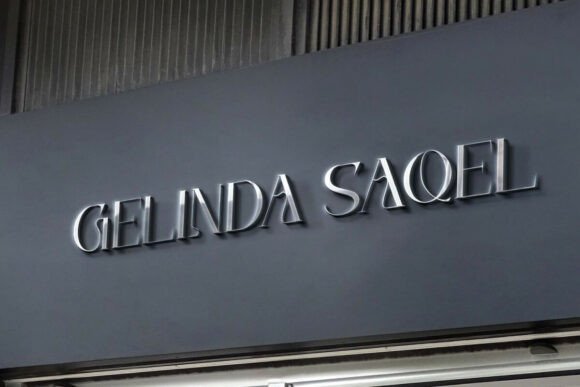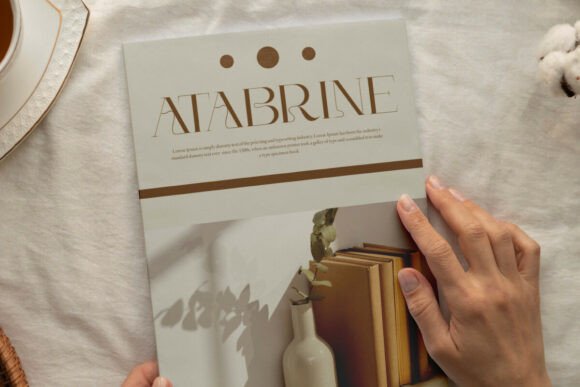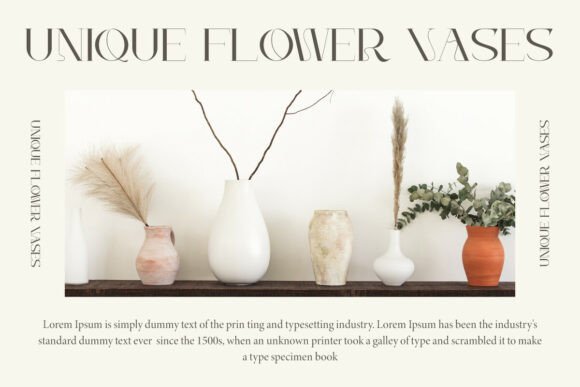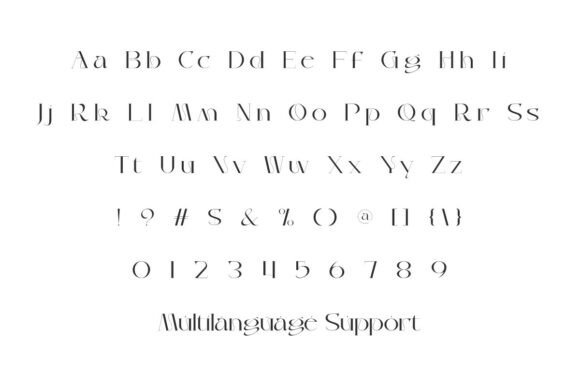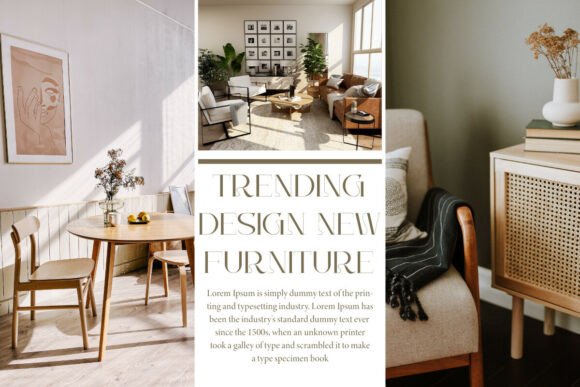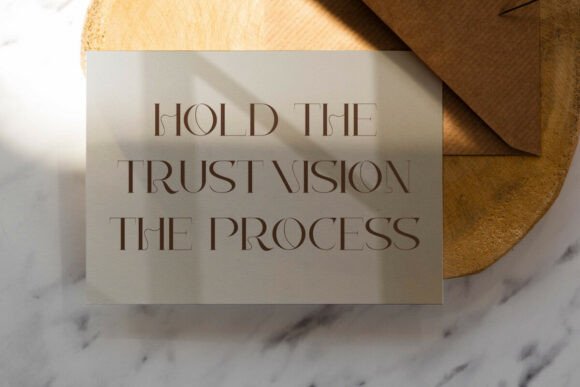
Introducing Atabrine Font: Elevate Your Designs with Classic Elegance and Modern Sophistication
In the world of typography, a font can make or break a design. It’s the foundation upon which creativity is built, and the right choice can elevate a project from ordinary to extraordinary. If you’re a designer, craftsperson, or simply someone who appreciates the art of beautiful typography, you’re in luck. Atabrine Font is an impressive serif display font that combines the classic elegance of flowing curves with the sophistication of modern design.
Designed for Versatility and Readability
Atabrine Font is crafted to be easily readable in both print and digital formats, making it an incredibly versatile choice for a wide range of applications. Whether you’re working on a banner, brochure, cover, greeting card, header, heading, label, poster, signage, tag, title, website, or any other project that requires a touch of elegance and sophistication, Atabrine Font is an excellent option.
One of the standout features of Atabrine Font is its ability to offer endless possibilities for customization and creativity. With a complete set of basic Uppercase and Lowercase characters, Numbers, Symbols, and Punctuation, you have the tools you need to bring your vision to life. The font’s unique shape presents an aesthetic appeal that is not only beautiful but also highly versatile, making it suitable for various creative projects.
Ideal for a Variety of Creative Projects
Atabrine Font’s versatility extends to a wide range of creative projects, including architecture, fashion, floristry, home furniture, interior design, restaurants, skincare, spa salons, weddings, and much more. Its classic elegance and modern sophistication make it an ideal choice for anyone looking to add a touch of refinement and style to their work.
Imagine using Atabrine Font to create a stunning logo for a fashion brand, a beautiful wedding invitation, or an elegant signage for a high-end restaurant. The font’s flowing curves and modern design ensure that your work will stand out from the crowd, making a lasting impression on your audience.
In today’s globalized world, communication knows no borders. That’s why Atabrine Font comes with multilingual language support, allowing you to create content that reaches a wider audience. Whether you’re working on a project that requires English, Spanish, French, or any other language, Atabrine Font has got you covered.
Key Features of Atabrine Font
- Classic Elegance and Modern Sophistication: Atabrine Font combines the best of both worlds, offering a unique blend of classic elegance and modern design.
- Easy Readability: Designed to be easily readable in both print and digital formats, making it perfect for a wide range of applications.
- Endless Customization Possibilities: With a complete set of basic Uppercase and Lowercase characters, Numbers, Symbols, and Punctuation, you have the tools you need to bring your vision to life.
- Multilingual Language Support: Create content that reaches a wider audience with Atabrine Font’s multilingual language support.
Atabrine Font is an exceptional serif display font that offers the perfect blend of classic elegance and modern sophistication. Its versatility, readability, and aesthetic appeal make it an ideal choice for a wide range of creative projects. Whether you’re a designer, craftsperson, or simply someone who appreciates beautiful typography, Atabrine Font is a valuable addition to your toolkit. With its multilingual language support and easy installation, you can start creating stunning designs that leave a lasting impression on your audience.